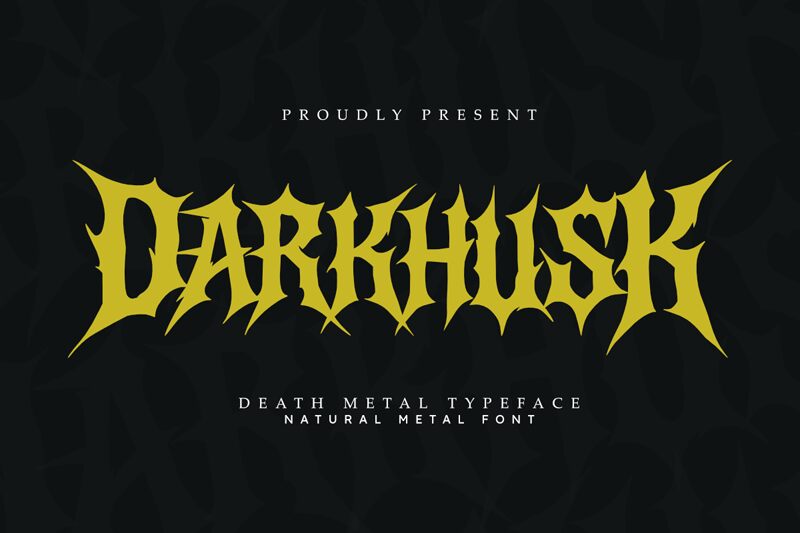
Darkhusk font by Muhammad Yafinuha captures a gothic-inspired vibe with its sharp and edgy aesthetic. This free font stands out with its dramatic presence and metallic feel, exuding an intensity that’s hard to ignore. Ideal for projects that need to convey power and evoke a dark mood, Darkhusk is well-suited for any design that seeks a bold statement.
Use it for heavy metal-themed posters, music branding, album covers, tattoo designs, digital art projects, video game graphics, horror movie titles, dark-themed blogs, fantasy book covers, or merchandise design. Its aggressive nature makes it perfect for projects needing an impactful and memorable look.